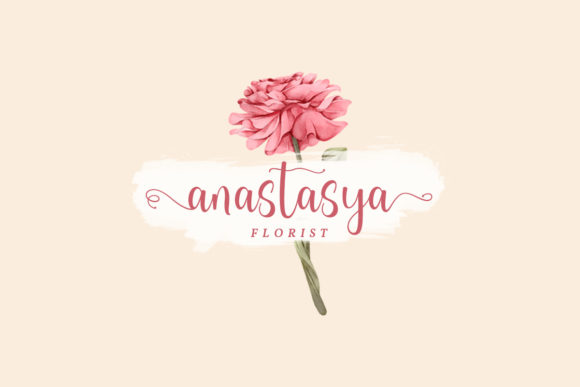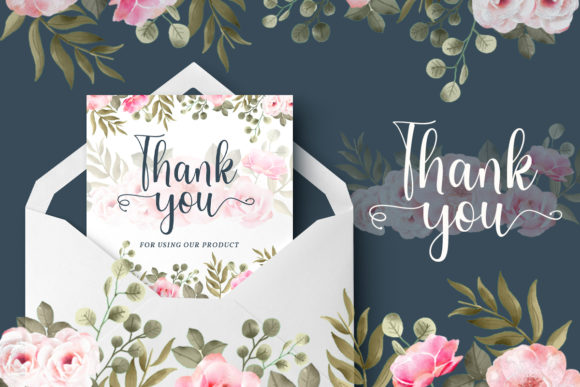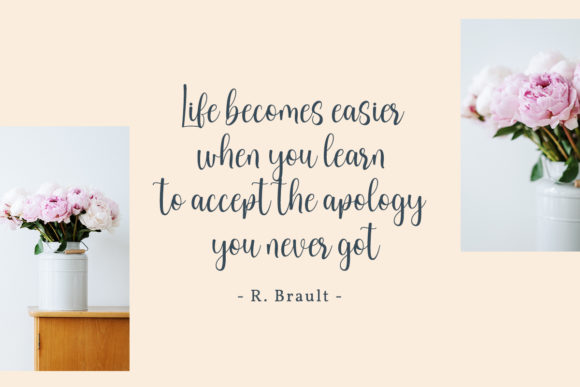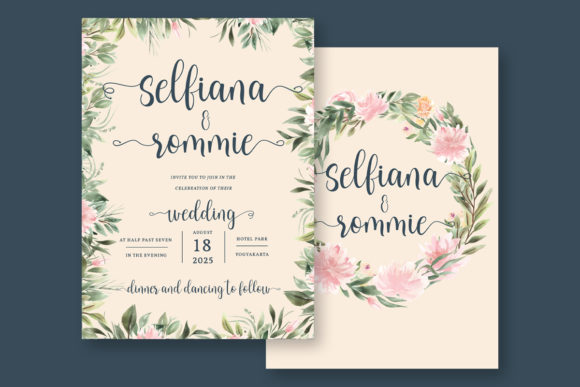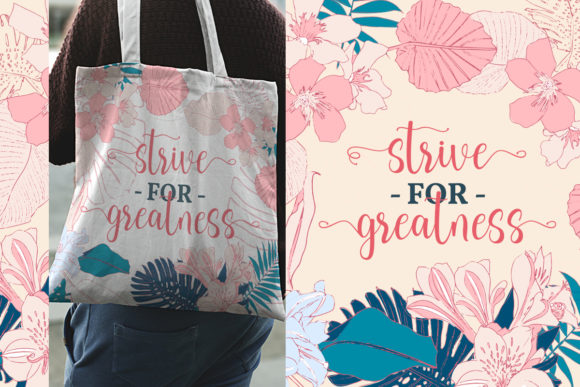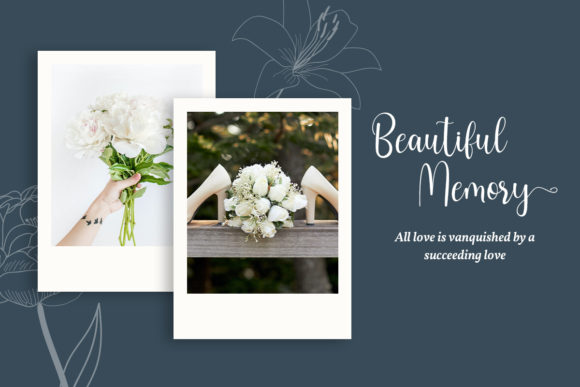
Introduction to Margareth Gretal Font
Margareth Gretal is an elegant and flowing handwritten font.
It is PUA encoded which means you can access all of the glyphs and swashes with ease It features a varying baseline, smooth lines, gorgeous glyphs and stunning alternates.
Key Features of Margareth Gretal Font